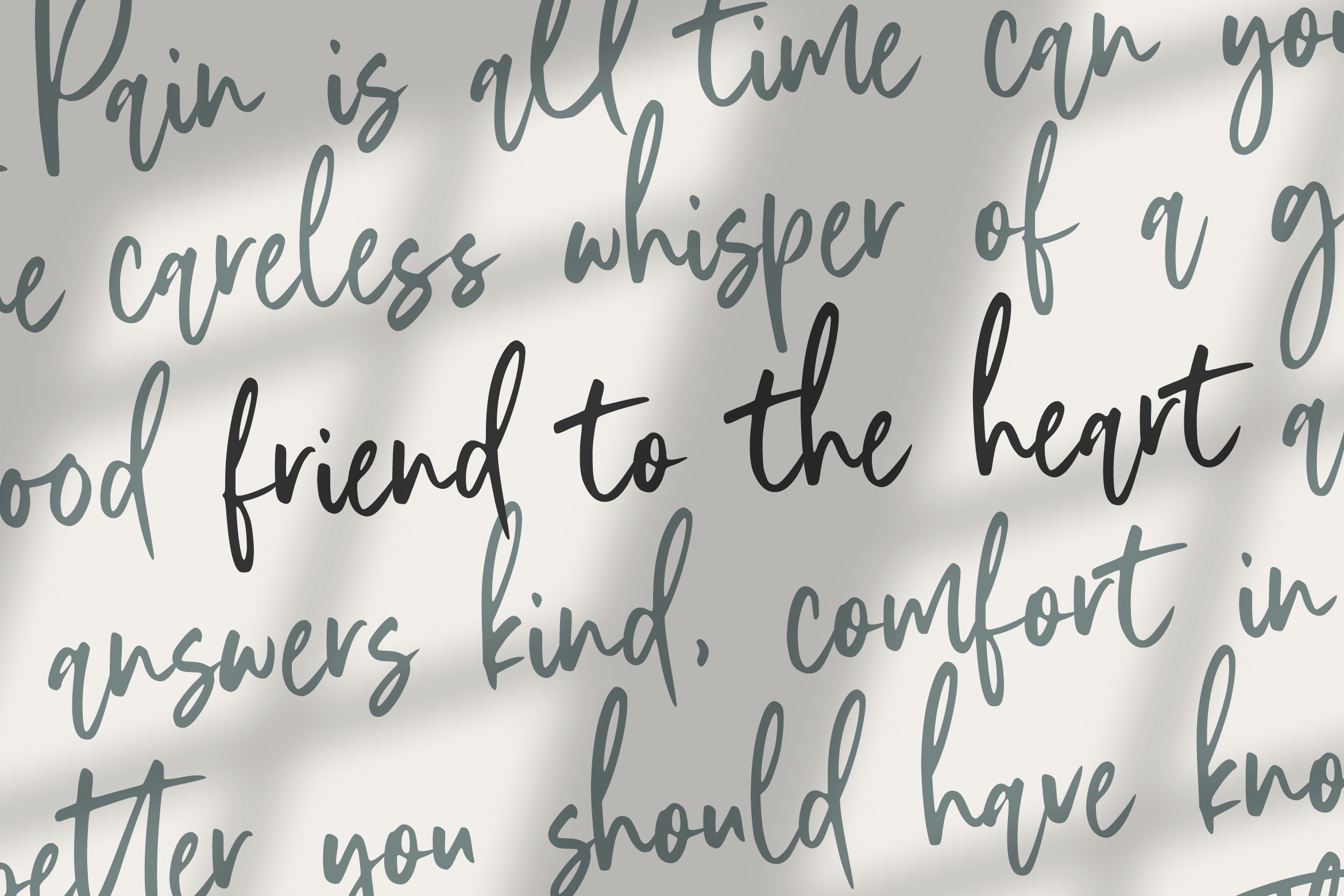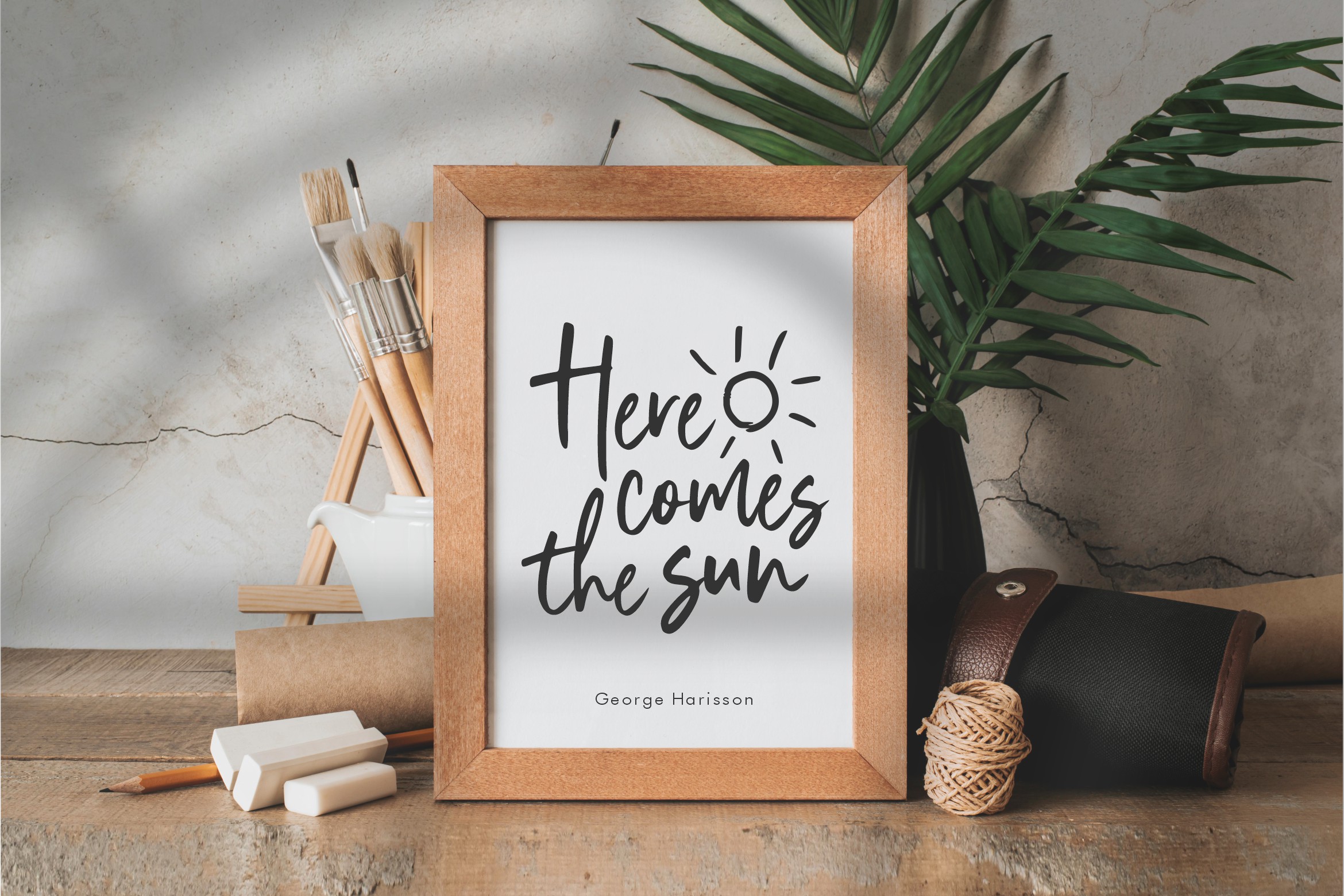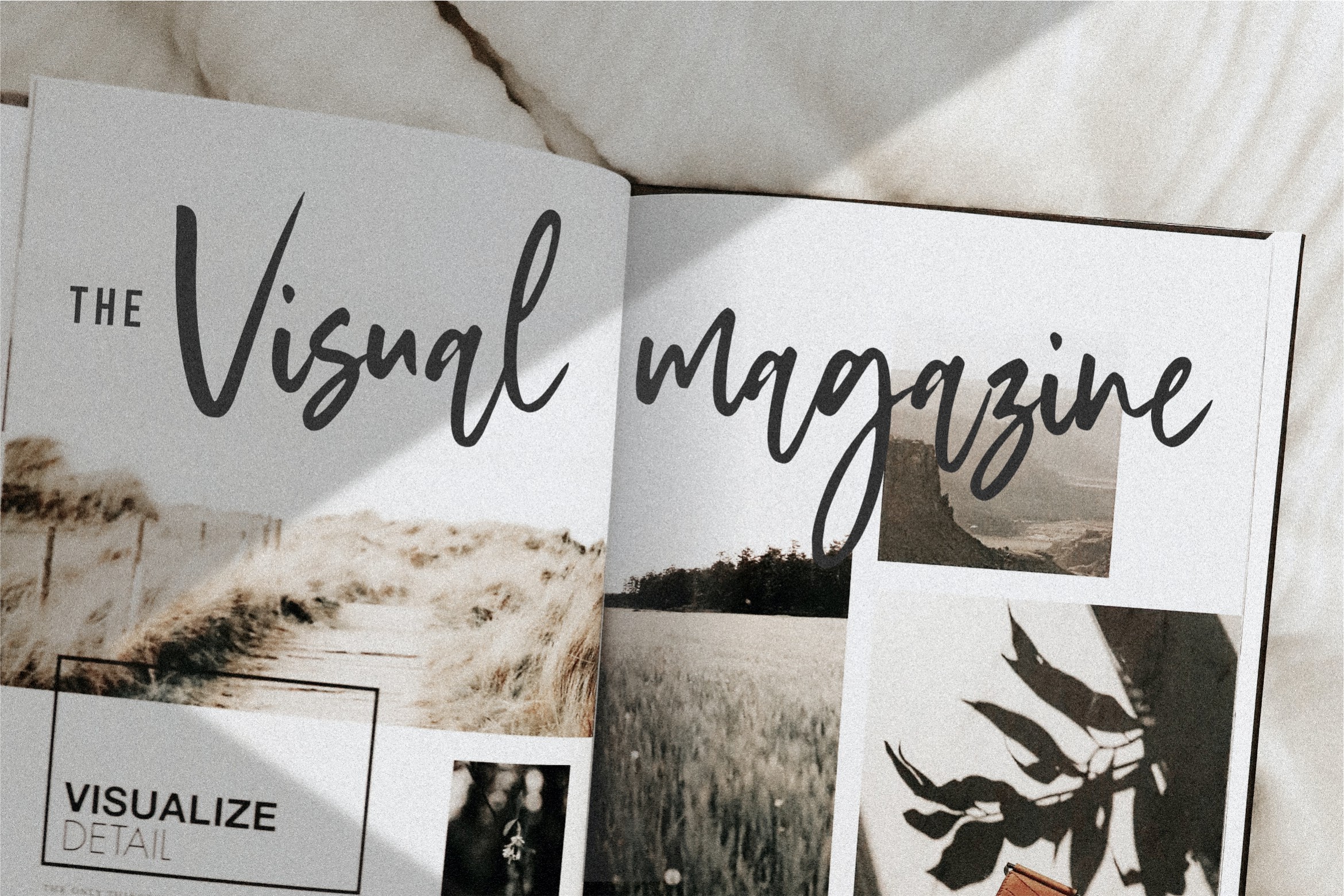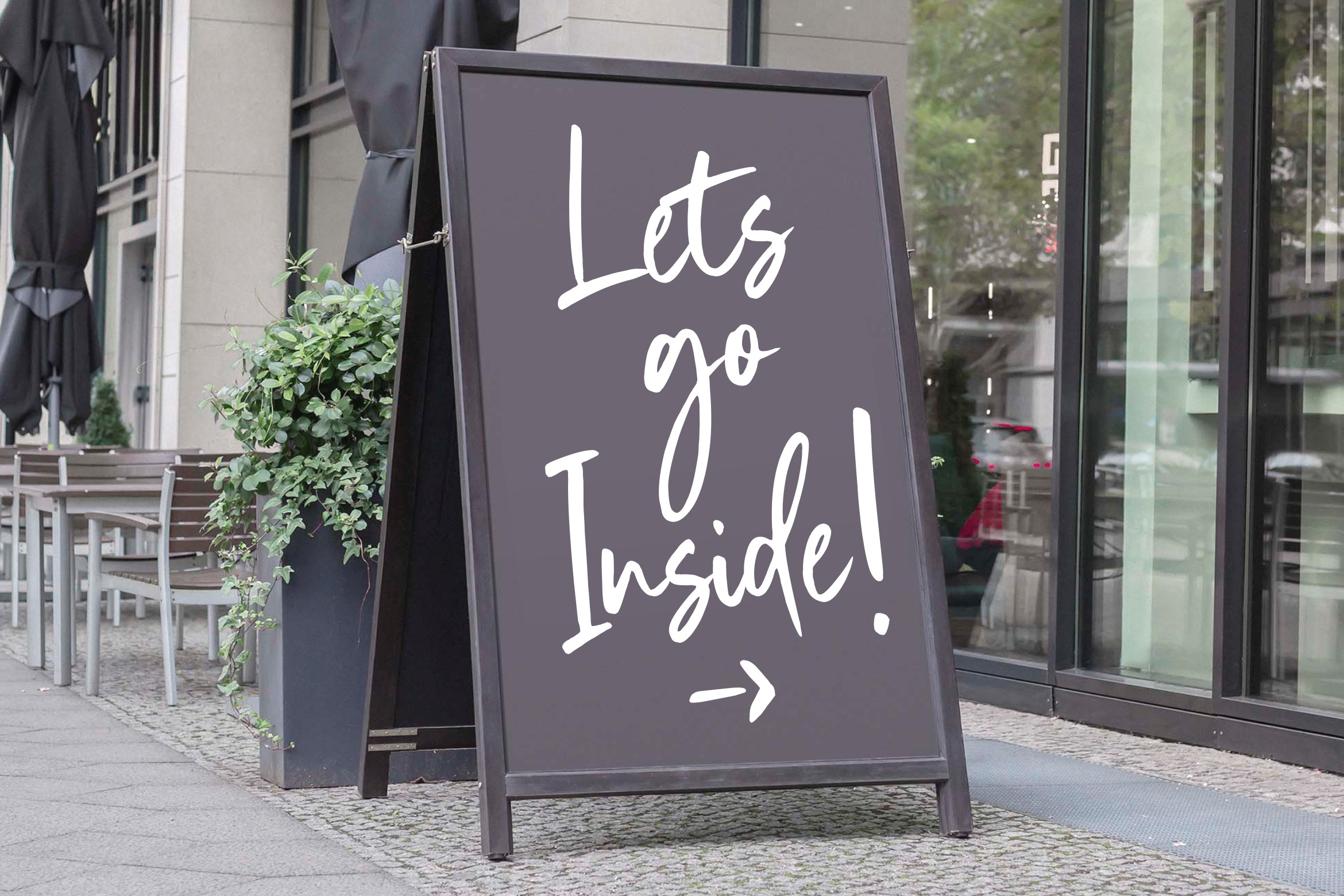
Stylish Garden Handwritten Font
Proudly Present, Stylist Garden Font.
Stylist Garden is a Modern Handwritten Font.
Stylist Garden is an exquisite handwritten font, masterfully designed to become a true favorite. It maintains its classy calligraphic influences while feeling contemporary and fresh. Fall in love with it and bring your projects to the highest levels!